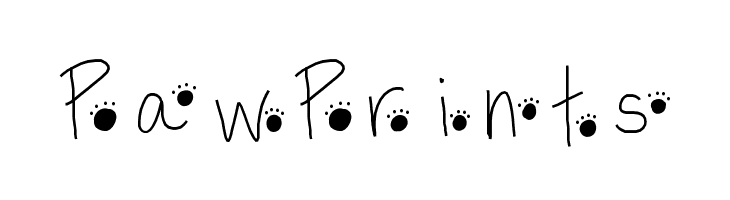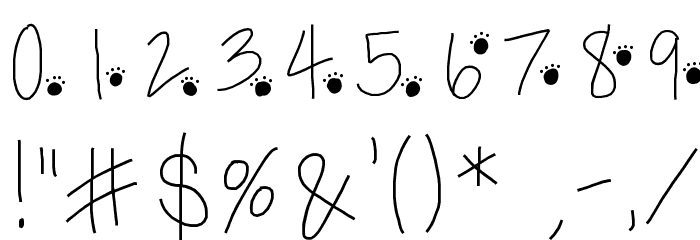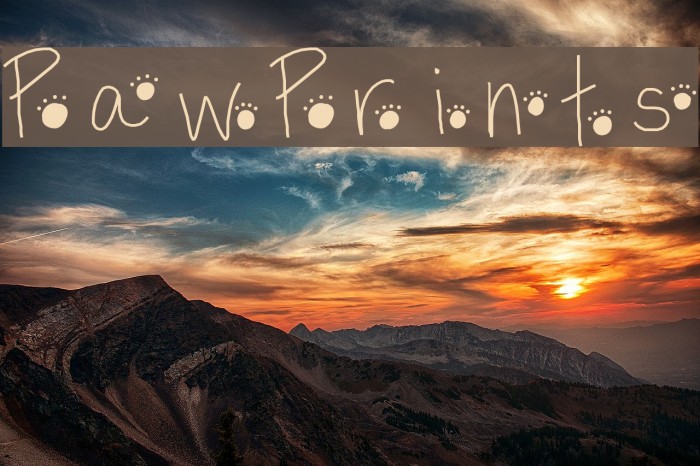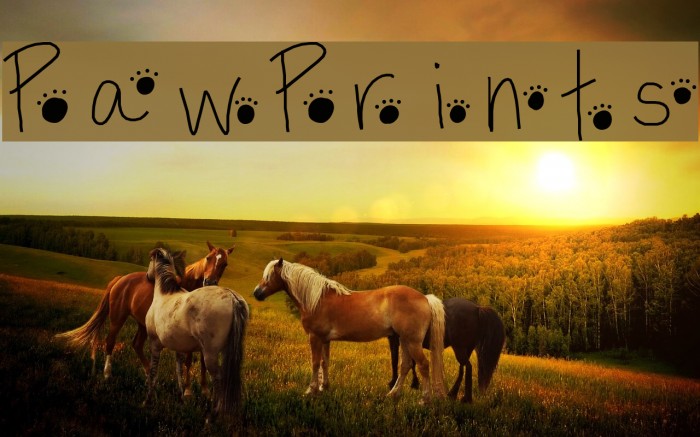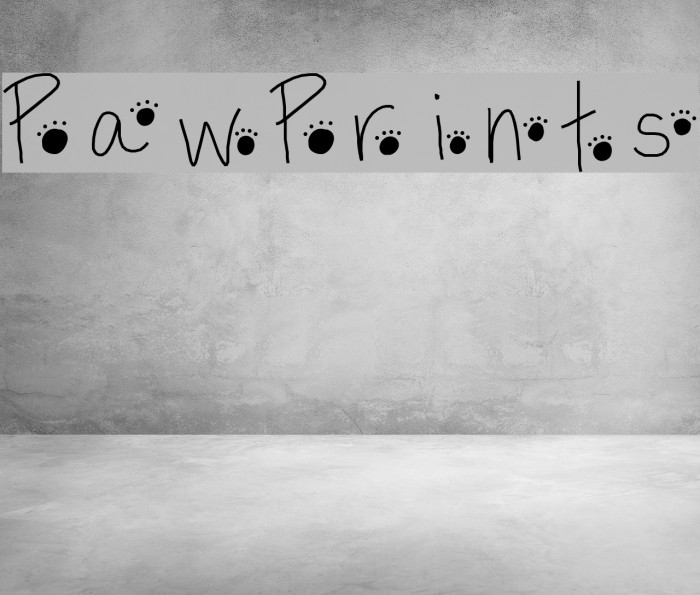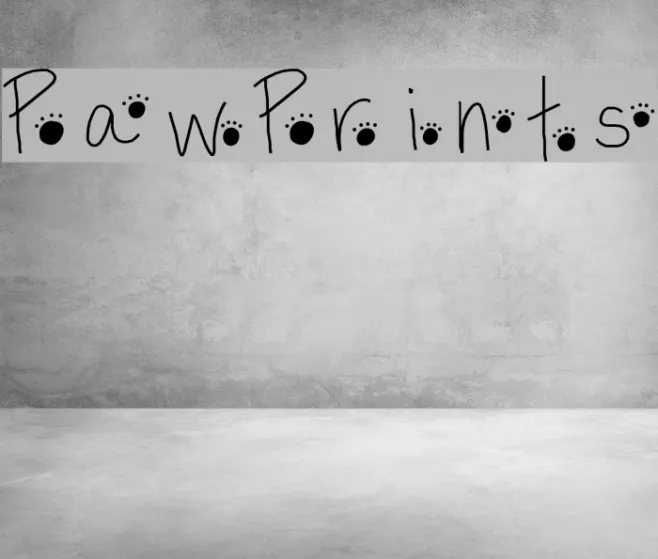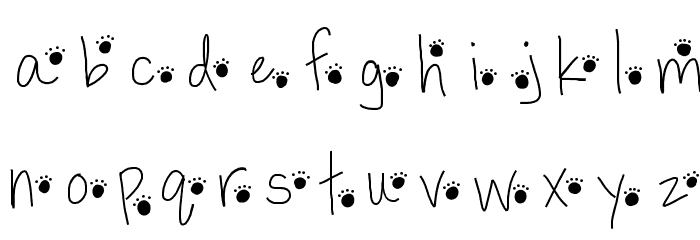
PawPrints Font
PawPrints Description
This playful and whimsical font features a unique design where each character is accompanied by a small paw print, adding a touch of charm and personality. The letters are crafted with a casual, handwritten style, giving them a friendly and approachable appearance. The strokes are thin and consistent, providing a clean and legible look. This font is perfect for projects that aim to convey a sense of fun and creativity, such as children's books, pet-related branding, or playful invitations. The inclusion of paw prints makes it particularly suitable for themes related to animals or pets.
| Overall Style | Playful |
| Use Case | Headlines, Logos, Decorative text |
| Proposed Projects | Ideal for children's books, pet branding, playful invitations, and animal-themed designs. |